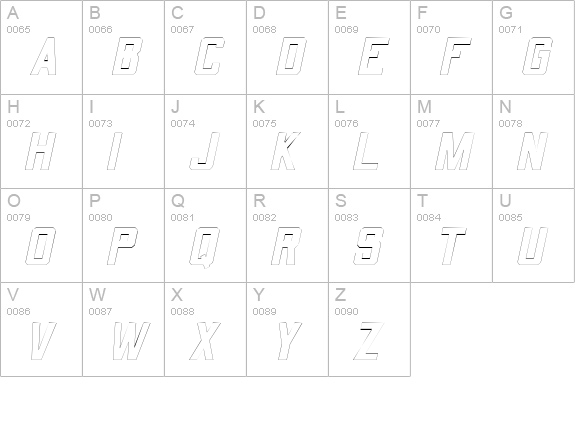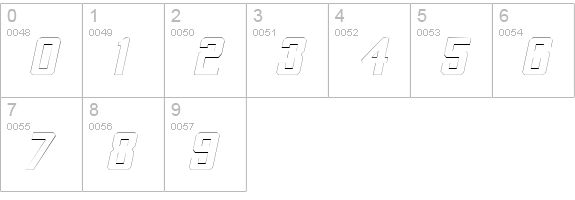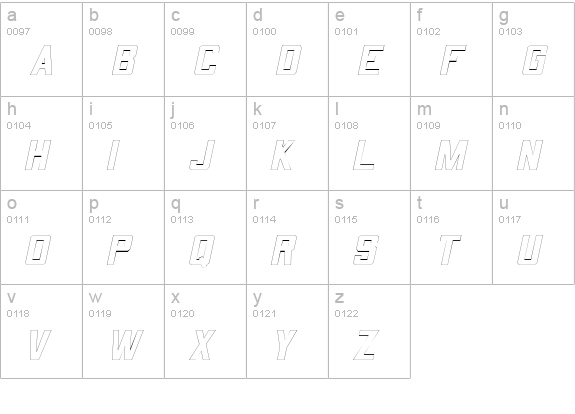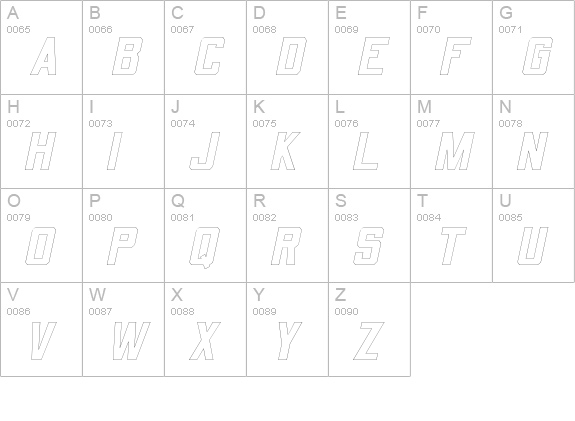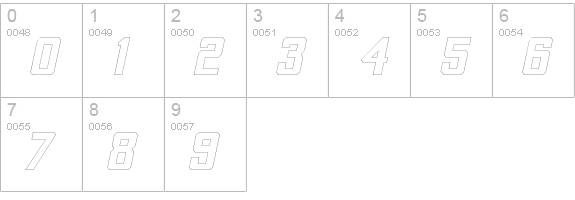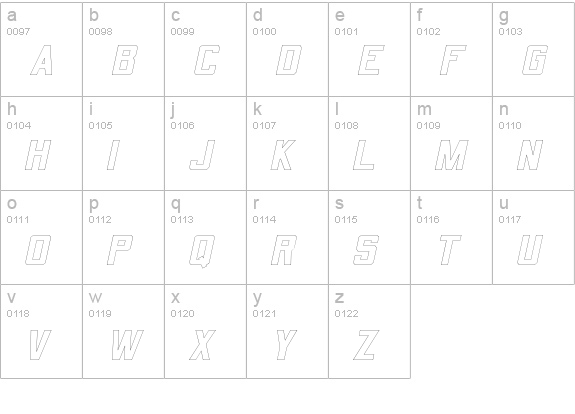
QuarterbackOutline Oblique Font Details
QuarterbackOutline Oblique is a distinctive, italic variant in the QuarterbackOutline typeface family \xE2\x80\x94 well suited to design and typography projects.
QuarterbackOutline Oblique is a striking and bold font that exudes a sense of power and athleticism. With its unique and dynamic design, this font is perfect for sports-related projects, team logos, and event promotions. The oblique slant adds an extra touch of stylishness, giving your designs a modern and edgy look. The clean lines and sharp angles of QuarterbackOutline Oblique make it highly legible, even at smaller sizes, ensuring that your message is always clear and impactful. Whether you're designing posters, banners, or social media graphics, this font will make your text stand out and grab attention. One of the best features of QuarterbackOutline Oblique is that it is available for free download at FontsMarket.com. Yes, you heard it right, this amazing font can be yours without spending a dime. FontsMarket.com offers a wide range of high-quality fonts, and QuarterbackOutline Oblique is just one of the many gems you can find there. So why wait? Get your hands on QuarterbackOutline Oblique today and take your designs to the next level. Whether you're a professional designer or just starting out, this font will add a touch of elegance and sophistication to your work. Download it now at FontsMarket.com and let your creativity soar.